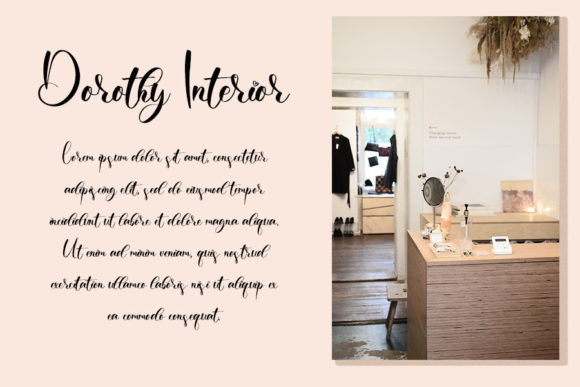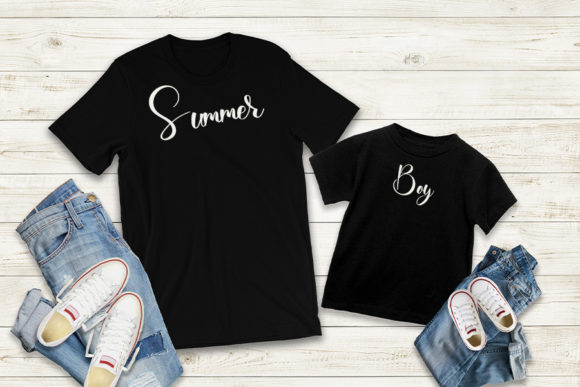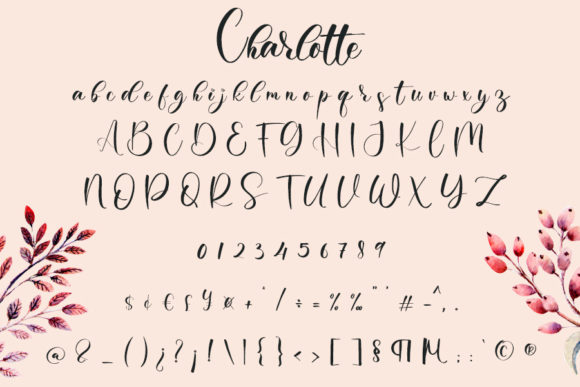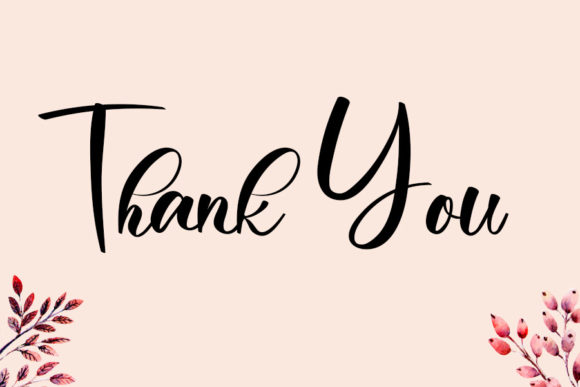
Introducing Charlotte Font: The Ultimate Handwritten Font for Creative Projects
Are you tired of using the same old fonts in your designs? Do you want to add a touch of personality and whimsy to your projects? Look no further than Charlotte Font, a cool, casual, and relaxed handwritten font that’s sure to brighten up your designs. In this article, we’ll take a closer look at Charlotte Font, its features, and how you can use it to take your designs to the next level.
What is Charlotte Font?
Charlotte Font is a beautiful, handwritten font that’s perfect for designers and crafters looking for a unique and quirky touch. This font is designed to be versatile and can be used for a wide range of projects, from branding and advertising to packaging and digital media. With its relaxed and casual vibe, Charlotte Font is ideal for creating designs that are fun, youthful, and engaging.
Key Features of Charlotte Font
So, what makes Charlotte Font so special? Here are some of its key features:
- Handwritten style: Charlotte Font has a beautiful, handwritten style that’s perfect for creating designs that are personal and unique.
- Cool and casual vibe: This font has a relaxed and casual vibe that’s perfect for creating designs that are fun and youthful.
- Whimsical and quirky: Charlotte Font has a touch of whimsy and quirkiness that’s sure to make your designs stand out.
- Versatile: This font can be used for a wide range of projects, from branding and advertising to packaging and digital media.
How to Use Charlotte Font in Your Designs
Now that we’ve covered the features of Charlotte Font, let’s talk about how you can use it in your designs. Here are some ideas to get you started:
- Branding and advertising: Use Charlotte Font to create unique and eye-catching logos, ads, and marketing materials.
- Packaging design: Add a touch of personality to your packaging designs with Charlotte Font.
- Digital media: Use Charlotte Font to create engaging and fun digital media, such as social media graphics, blog posts, and email newsletters.
- Crafting and DIY projects: Charlotte Font is perfect for crafters and DIY enthusiasts who want to add a personal touch to their projects.
Tips for Getting the Most Out of Charlotte Font
Here are some tips for getting the most out of Charlotte Font:
- Experiment with different colors and textures: Charlotte Font looks great in a variety of colors and textures, so don’t be afraid to experiment and find the perfect combination for your design.
- Use it with other fonts: Charlotte Font pairs well with other fonts, so try using it with a bold font for headings or a clean font for body text.
- Play with font sizes and styles: Charlotte Font comes in a range of font sizes and styles, so experiment with different sizes and styles to add visual interest to your design.
Charlotte Font is a unique and versatile handwritten font that’s perfect for designers and crafters looking for a cool, casual, and relaxed vibe. With its whimsical and quirky touch, this font is sure to brighten up your designs and add a personal touch. Whether you’re working on a branding project, packaging design, or digital media, Charlotte Font is a great choice. So why not give it a try and see the difference it can make in your designs?
In conclusion, Charlotte Font is a must-have font for any designer or crafter looking to add a touch of personality and whimsy to their projects. Its versatility, cool and casual vibe, and whimsical and quirky touch make it the perfect font for a wide range of designs. So, add Charlotte Font to your font collection today and start creating designs that are fun, youthful, and engaging!